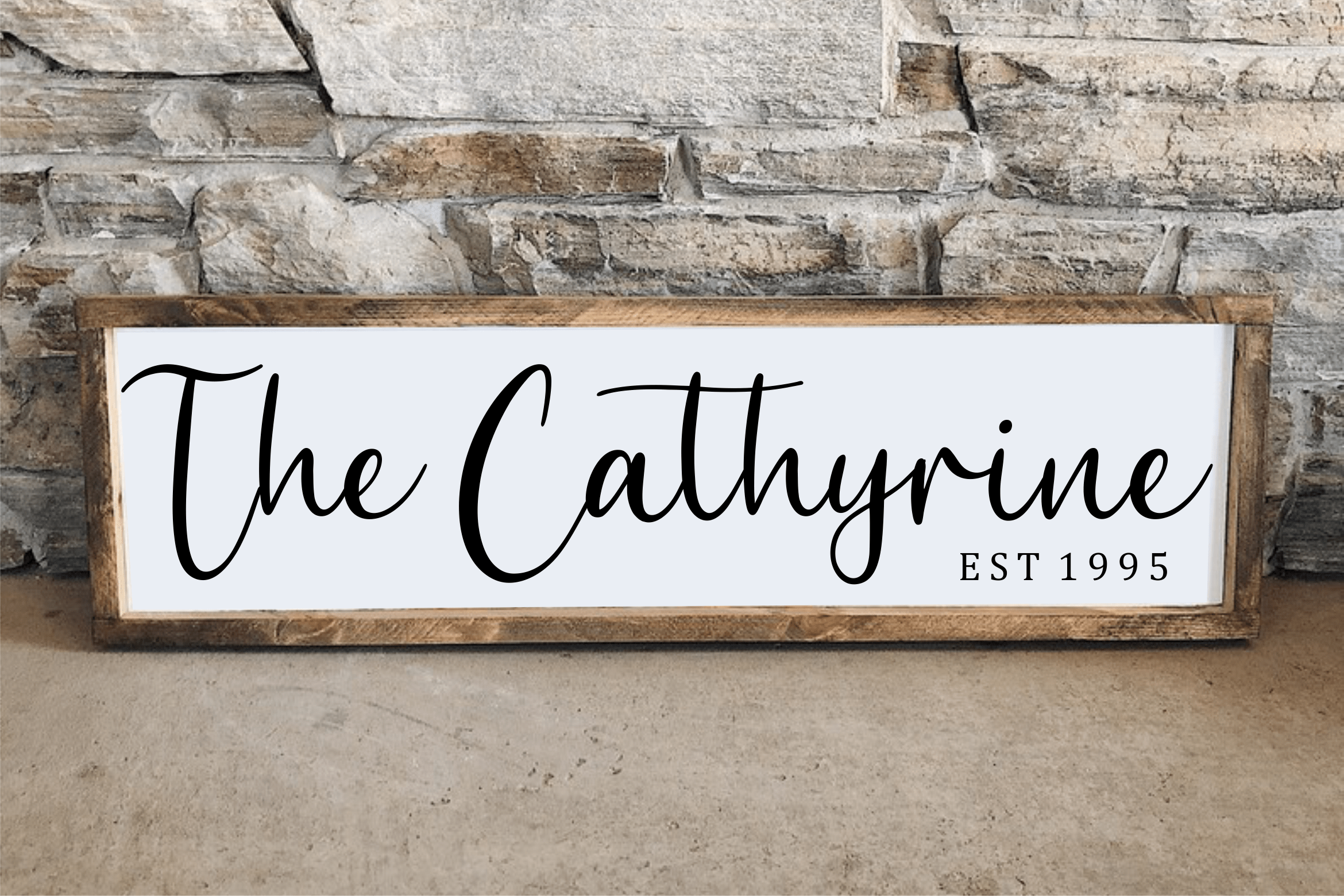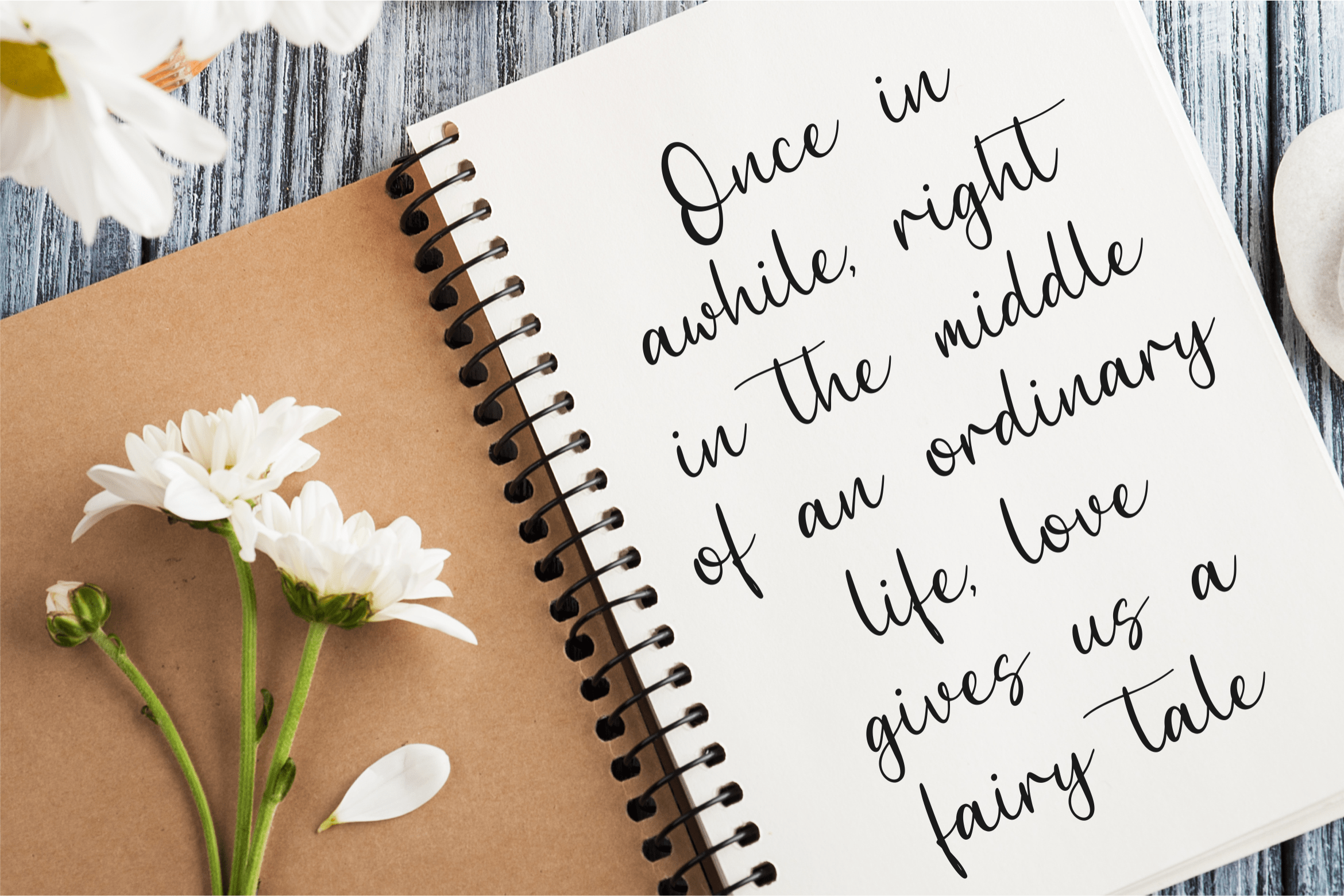
Beasttica Font
Beasttica Script Font
This is a beautiful and light handwritten font with a unique feel and a stunning impact. It will add a luxury spark to any design project that you wish to create! This font is PUA encoded which means you can access all of the amazing glyphs and ligatures with ease!